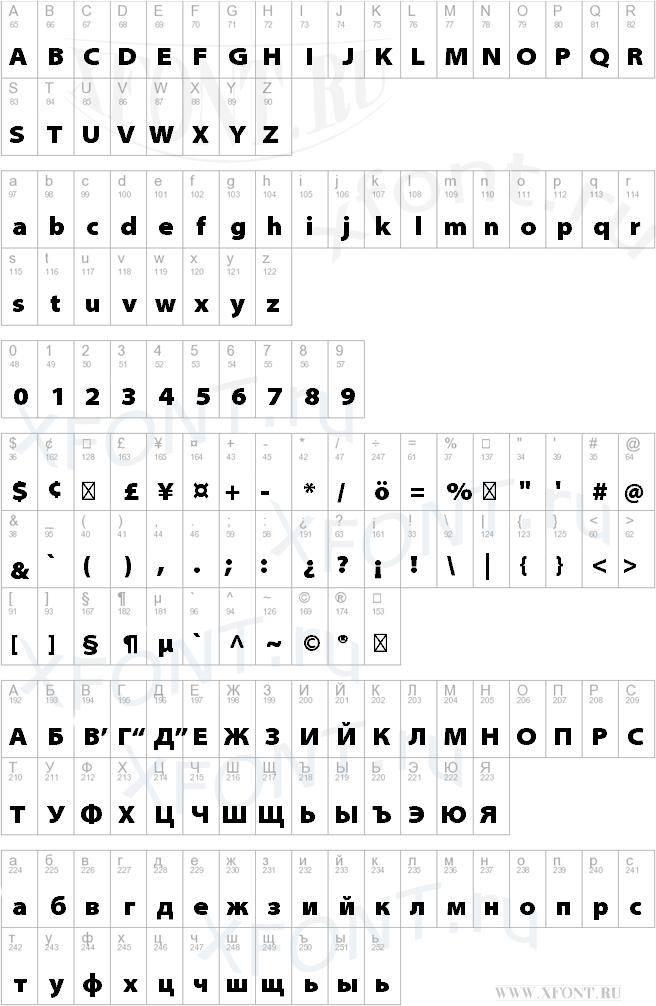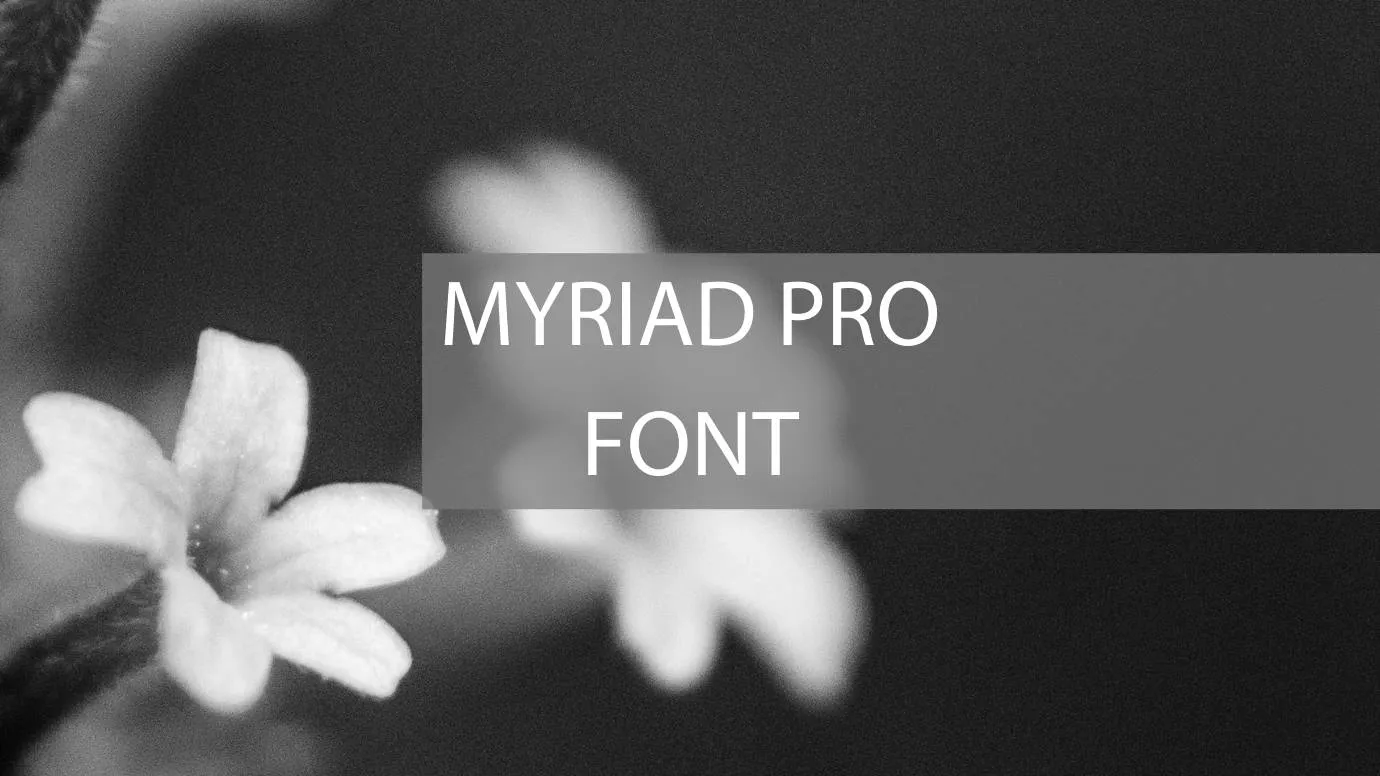
Myriad Pro Font Download - Adobe fonts is the easiest. Sphinx of black quartz, judge my vow. A sans serif typeface with 40 styles, available from adobe fonts for sync and web use. Myriad pro by adobe is available from type network for desktop, web, app, and epub licensing. Myriad pro regular the service used to deliver this font for use on websites is provided by adobe fonts and is subject to the adobe terms of use. Buy 42 styles of myriad pro starting at $35, or. Myriad contains 42 styles and family package options. Myriad font family was designed by robert slimbach, carol twombly and published by adobe. Explore myriad designed by carol twombly, robert slimbach at adobe fonts.
Myriad pro by adobe is available from type network for desktop, web, app, and epub licensing. Myriad pro regular the service used to deliver this font for use on websites is provided by adobe fonts and is subject to the adobe terms of use. Adobe fonts is the easiest. Myriad contains 42 styles and family package options. Explore myriad designed by carol twombly, robert slimbach at adobe fonts. A sans serif typeface with 40 styles, available from adobe fonts for sync and web use. Myriad font family was designed by robert slimbach, carol twombly and published by adobe. Sphinx of black quartz, judge my vow. Buy 42 styles of myriad pro starting at $35, or.
A sans serif typeface with 40 styles, available from adobe fonts for sync and web use. Myriad contains 42 styles and family package options. Buy 42 styles of myriad pro starting at $35, or. Explore myriad designed by carol twombly, robert slimbach at adobe fonts. Myriad pro regular the service used to deliver this font for use on websites is provided by adobe fonts and is subject to the adobe terms of use. Adobe fonts is the easiest. Myriad font family was designed by robert slimbach, carol twombly and published by adobe. Sphinx of black quartz, judge my vow. Myriad pro by adobe is available from type network for desktop, web, app, and epub licensing.
Myriad font family was designed by robert slimbach, carol twombly and published by adobe. Sphinx of black quartz, judge my vow. Myriad pro by adobe is available from type network for desktop, web, app, and epub licensing. Adobe fonts is the easiest. Explore myriad designed by carol twombly, robert slimbach at adobe fonts.
Explore myriad designed by carol twombly, robert slimbach at adobe fonts. Adobe fonts is the easiest. A sans serif typeface with 40 styles, available from adobe fonts for sync and web use. Myriad pro regular the service used to deliver this font for use on websites is provided by adobe fonts and is subject to the adobe terms of use..
Sphinx of black quartz, judge my vow. Adobe fonts is the easiest. Myriad font family was designed by robert slimbach, carol twombly and published by adobe. Myriad pro by adobe is available from type network for desktop, web, app, and epub licensing. A sans serif typeface with 40 styles, available from adobe fonts for sync and web use.
Myriad contains 42 styles and family package options. Buy 42 styles of myriad pro starting at $35, or. Sphinx of black quartz, judge my vow. Adobe fonts is the easiest. Myriad font family was designed by robert slimbach, carol twombly and published by adobe.
A sans serif typeface with 40 styles, available from adobe fonts for sync and web use. Myriad pro regular the service used to deliver this font for use on websites is provided by adobe fonts and is subject to the adobe terms of use. Myriad font family was designed by robert slimbach, carol twombly and published by adobe. Myriad pro.
Myriad font family was designed by robert slimbach, carol twombly and published by adobe. Explore myriad designed by carol twombly, robert slimbach at adobe fonts. Myriad pro regular the service used to deliver this font for use on websites is provided by adobe fonts and is subject to the adobe terms of use. Myriad pro by adobe is available from.
A sans serif typeface with 40 styles, available from adobe fonts for sync and web use. Myriad contains 42 styles and family package options. Buy 42 styles of myriad pro starting at $35, or. Adobe fonts is the easiest. Explore myriad designed by carol twombly, robert slimbach at adobe fonts.
Myriad pro by adobe is available from type network for desktop, web, app, and epub licensing. Explore myriad designed by carol twombly, robert slimbach at adobe fonts. Myriad pro regular the service used to deliver this font for use on websites is provided by adobe fonts and is subject to the adobe terms of use. A sans serif typeface with.
Myriad font family was designed by robert slimbach, carol twombly and published by adobe. Myriad contains 42 styles and family package options. Buy 42 styles of myriad pro starting at $35, or. Myriad pro by adobe is available from type network for desktop, web, app, and epub licensing. A sans serif typeface with 40 styles, available from adobe fonts for.
Myriad pro regular the service used to deliver this font for use on websites is provided by adobe fonts and is subject to the adobe terms of use. Buy 42 styles of myriad pro starting at $35, or. Explore myriad designed by carol twombly, robert slimbach at adobe fonts. Myriad pro by adobe is available from type network for desktop,.
Myriad pro by adobe is available from type network for desktop, web, app, and epub licensing. Buy 42 styles of myriad pro starting at $35, or. Myriad font family was designed by robert slimbach, carol twombly and published by adobe.